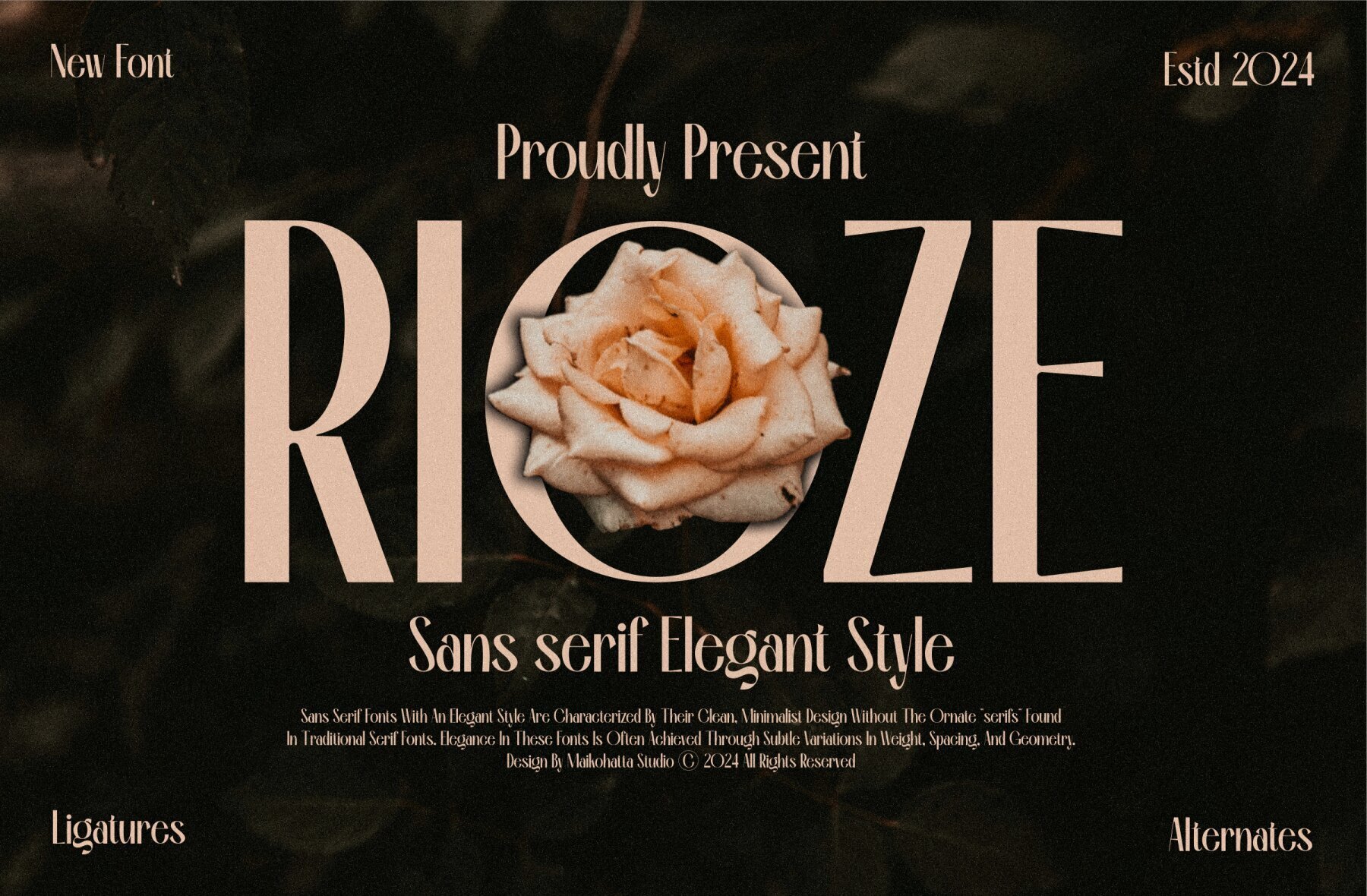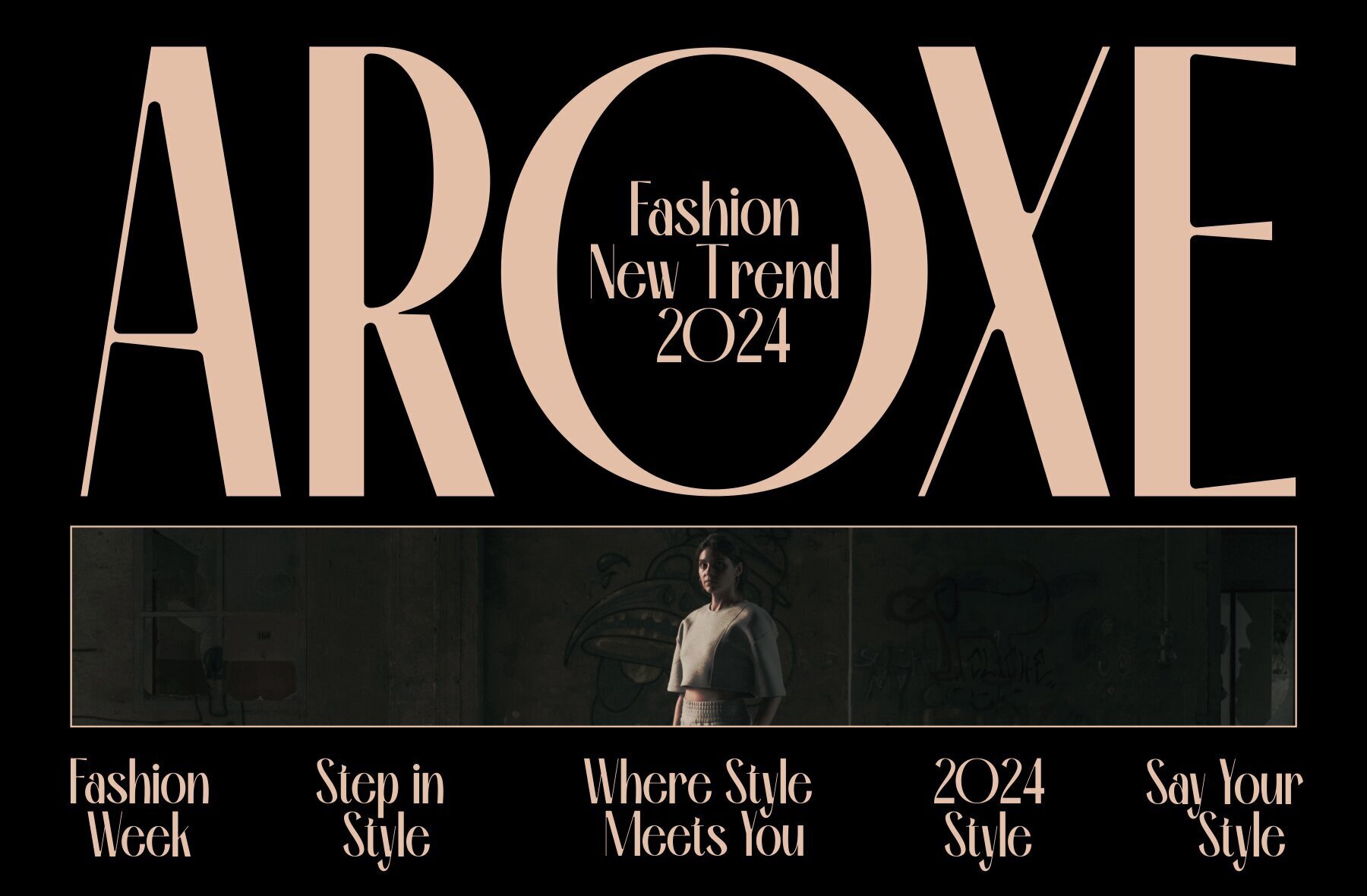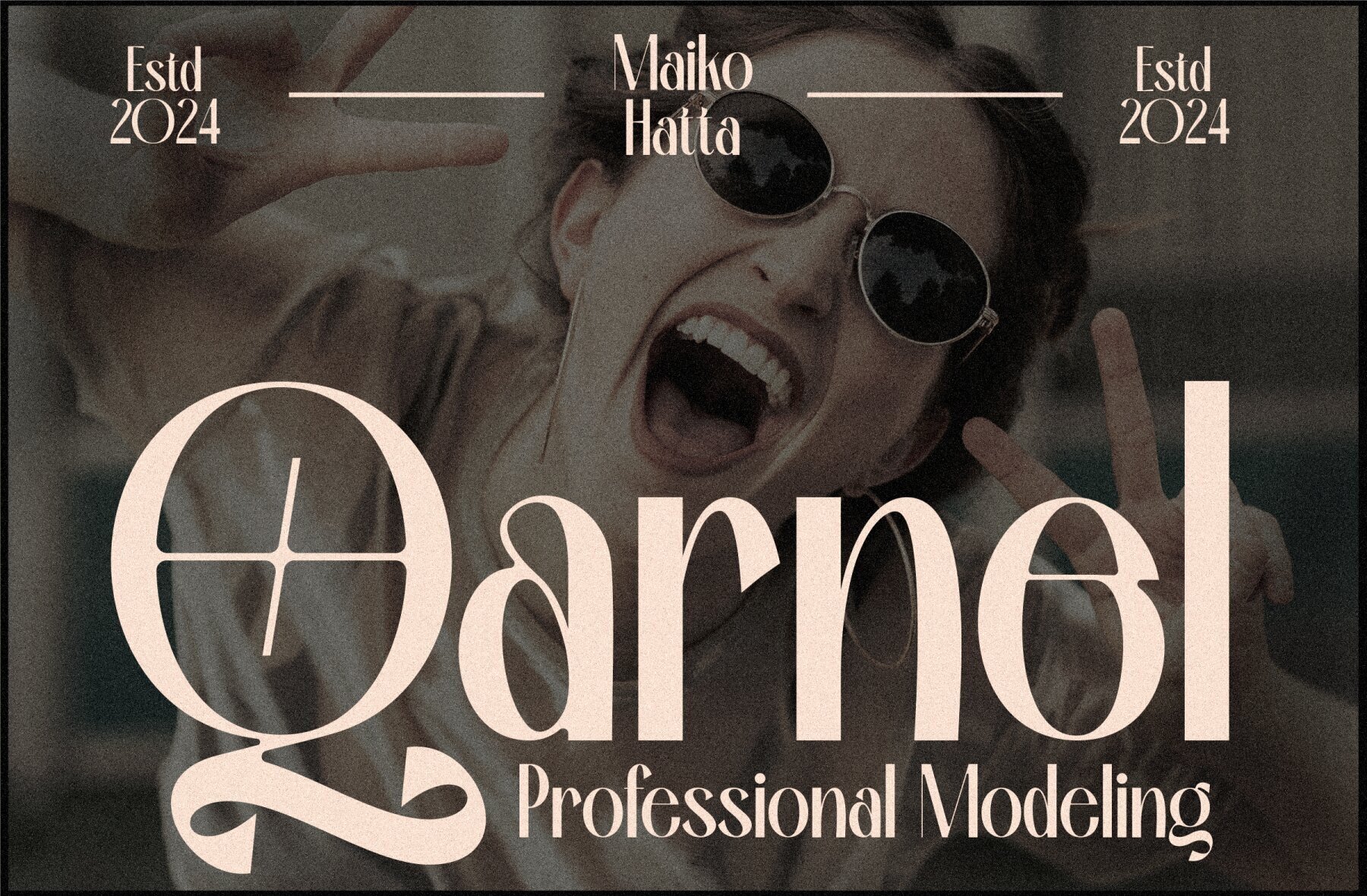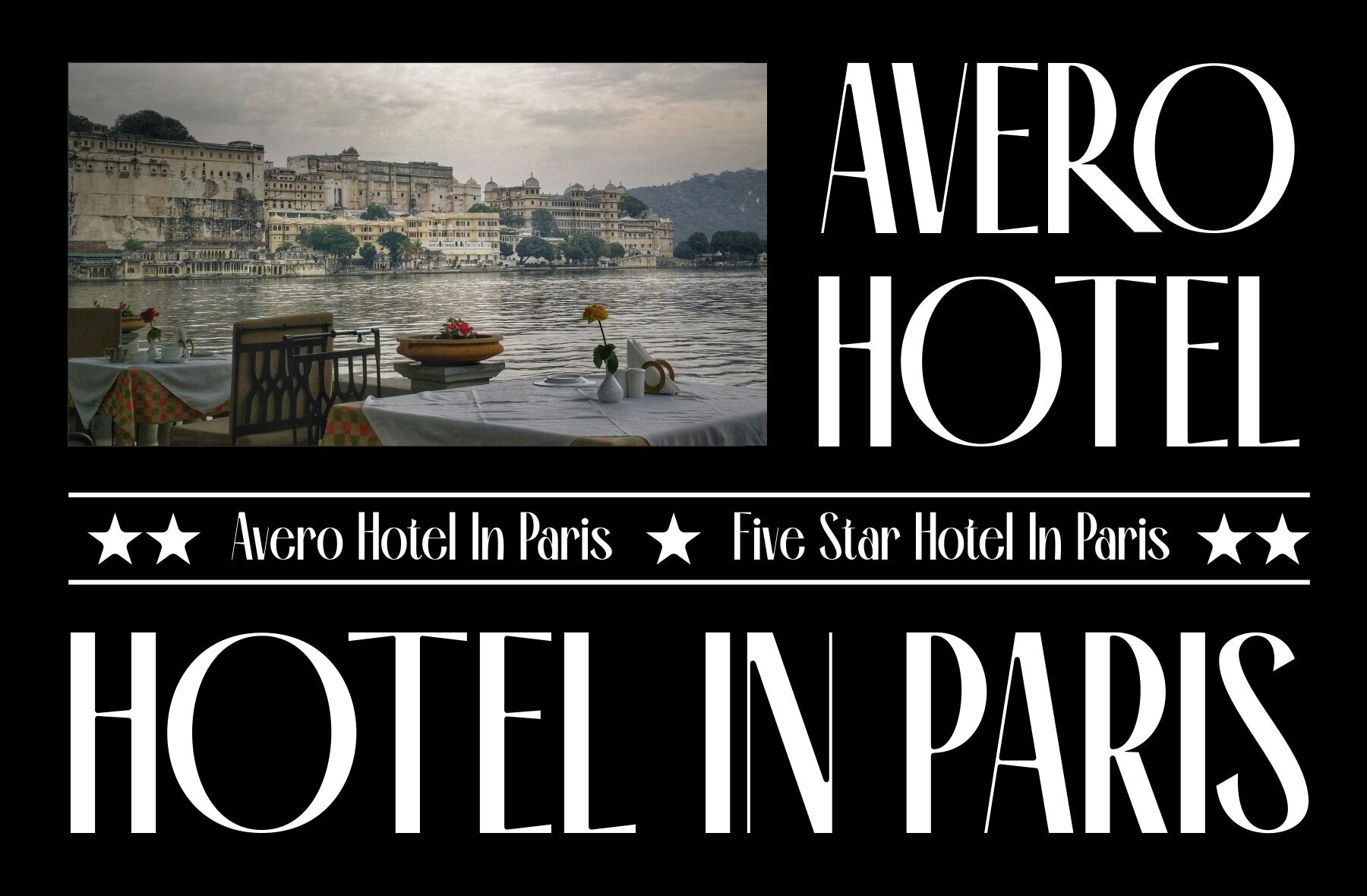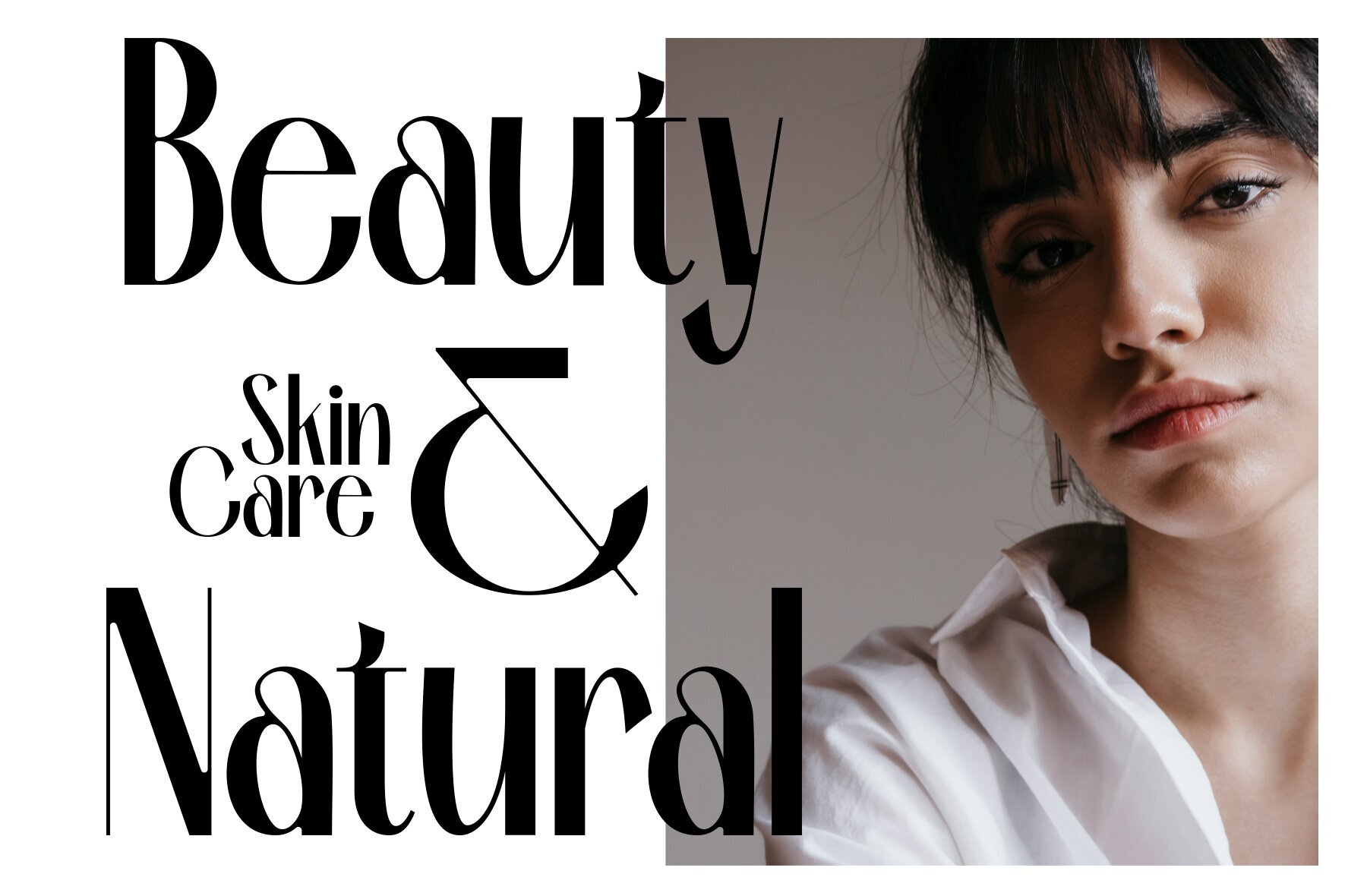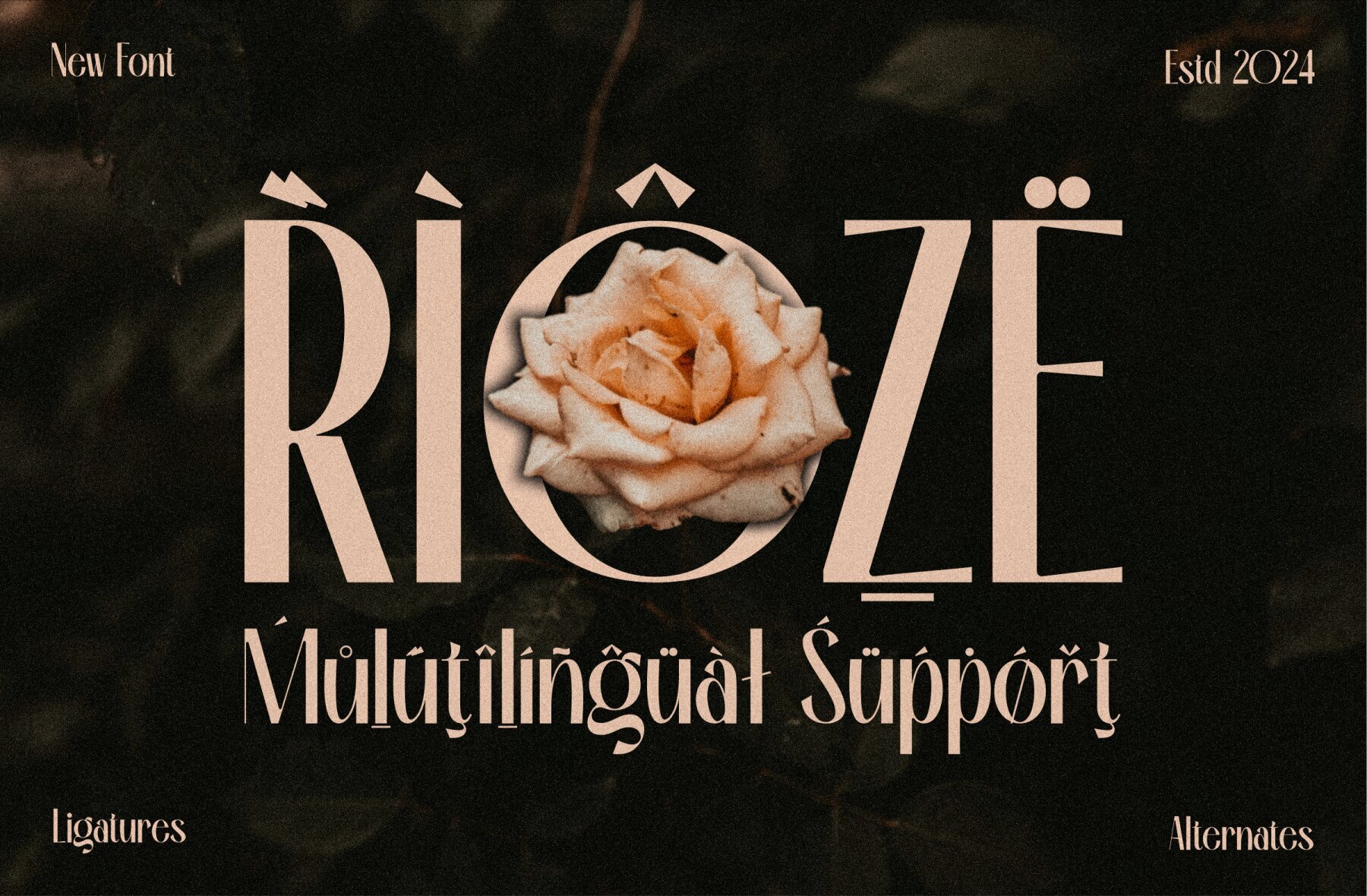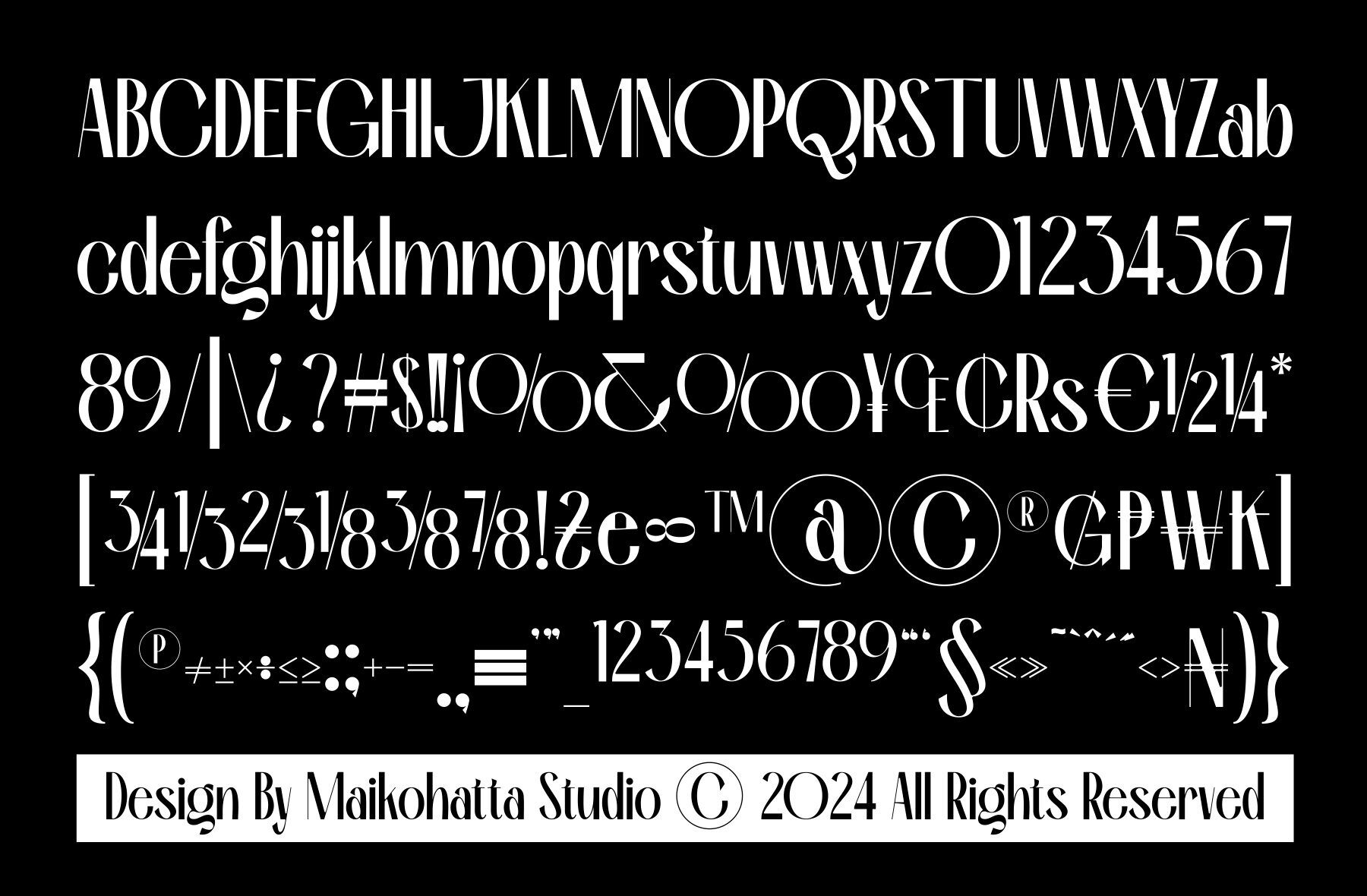
Rioze Font
This elegant and decorative serif font is perfect for projects that require a touch of sophistication and style. With its high contrast and distinctiveness, it is ideal for fashion branding, luxury packaging, chic magazine editorials, and eye-catching posters. Its unique and bold design ensures that your text will stand out and make a lasting impression.